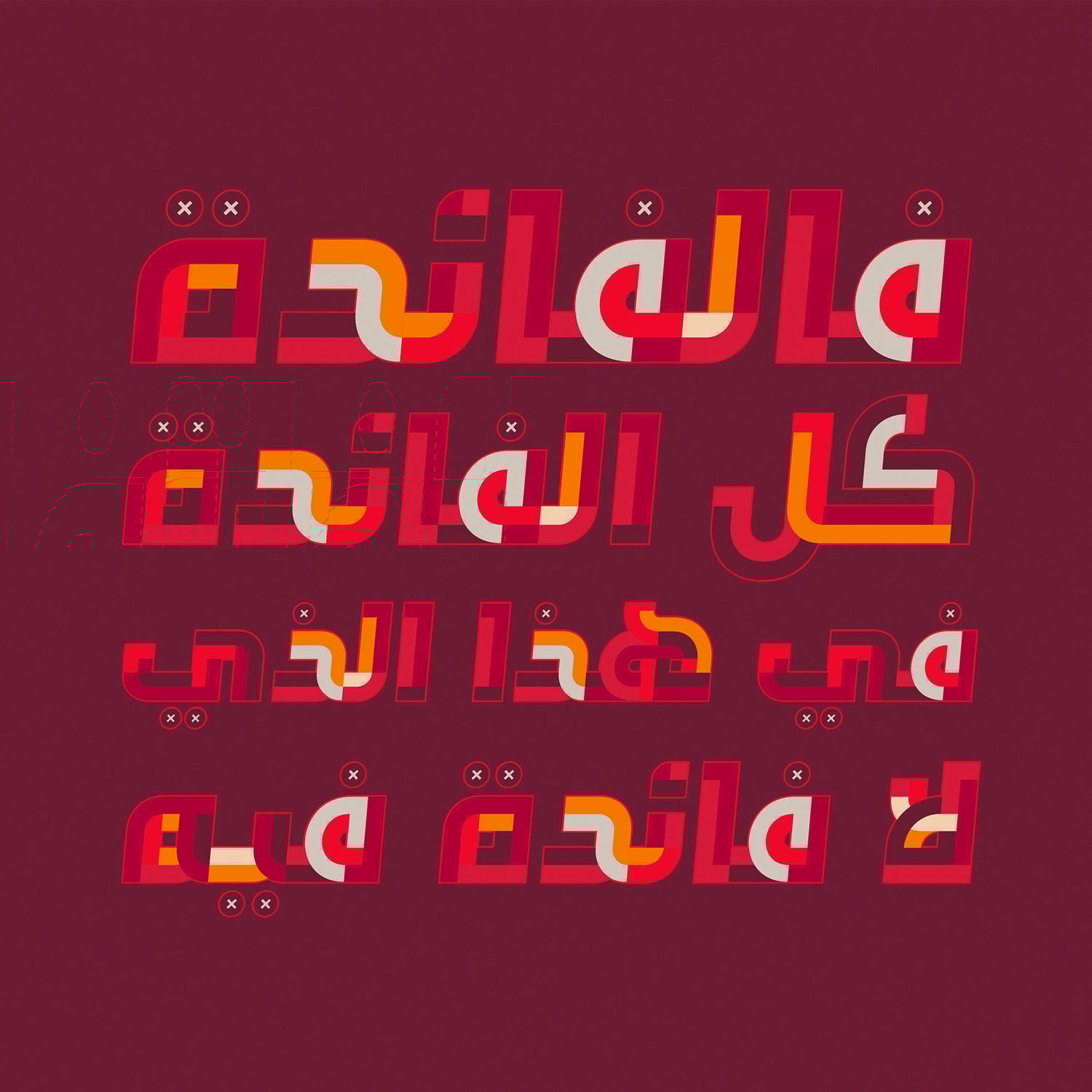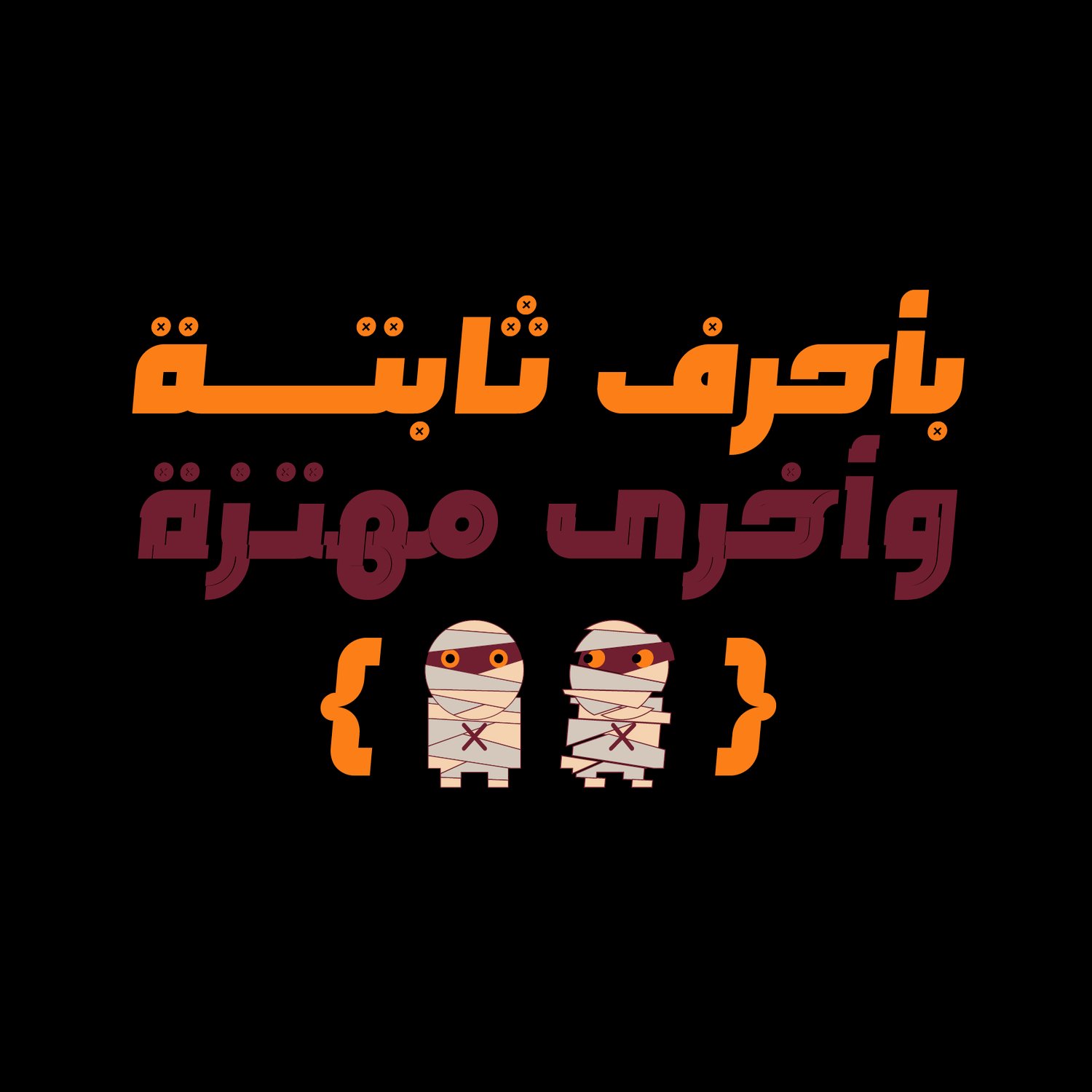
Tafkeek - Arabic Color Font
Tafkeek (the Arabic for 'Disassembly') is an experimental font that features distinctive letterform design that mimics a unique shaking effect. This OpenType-SVG font family includes two color fonts in two different styles (Assembled & Disassembled) along with two conventional OTF fonts. Tafkeek is perfect for a range of modern design projects, including web, animations, print, and mobile applications.